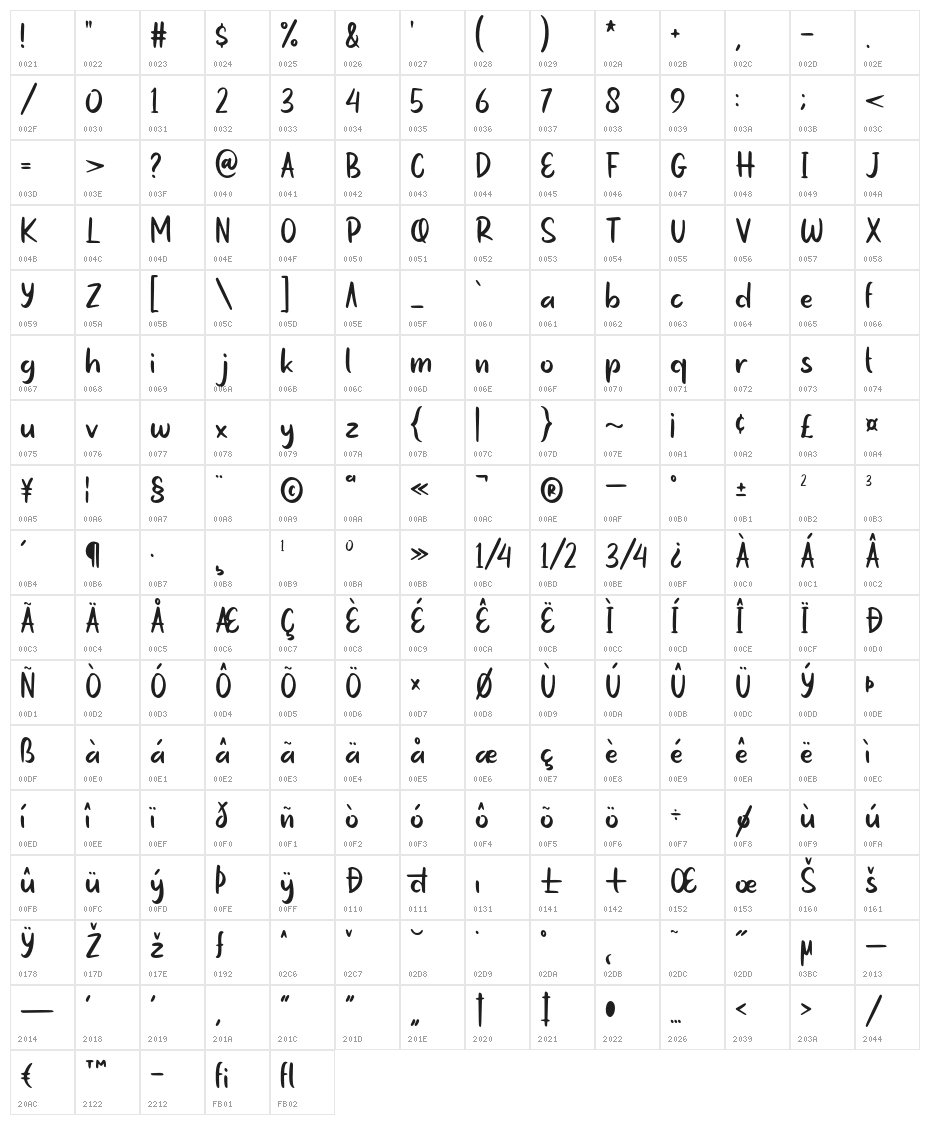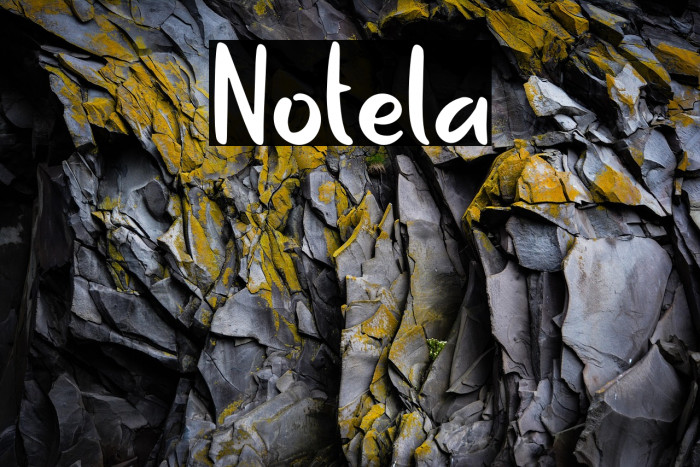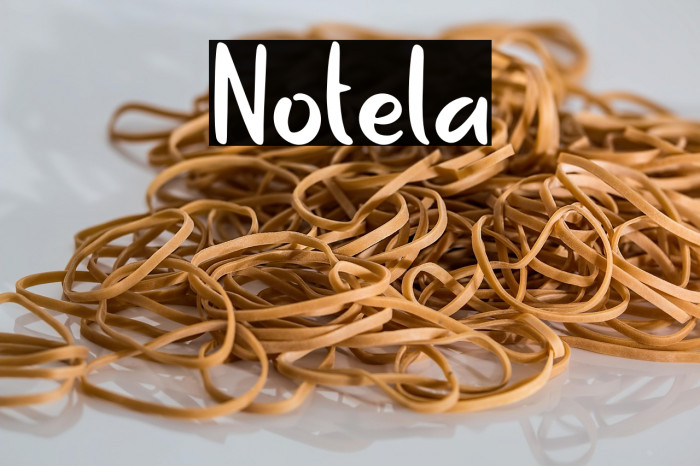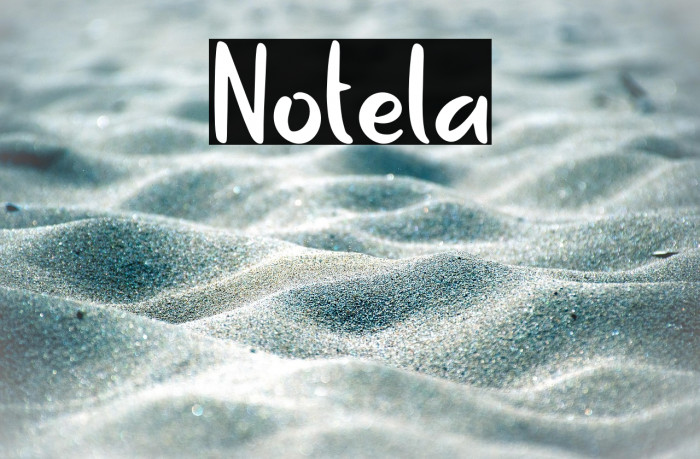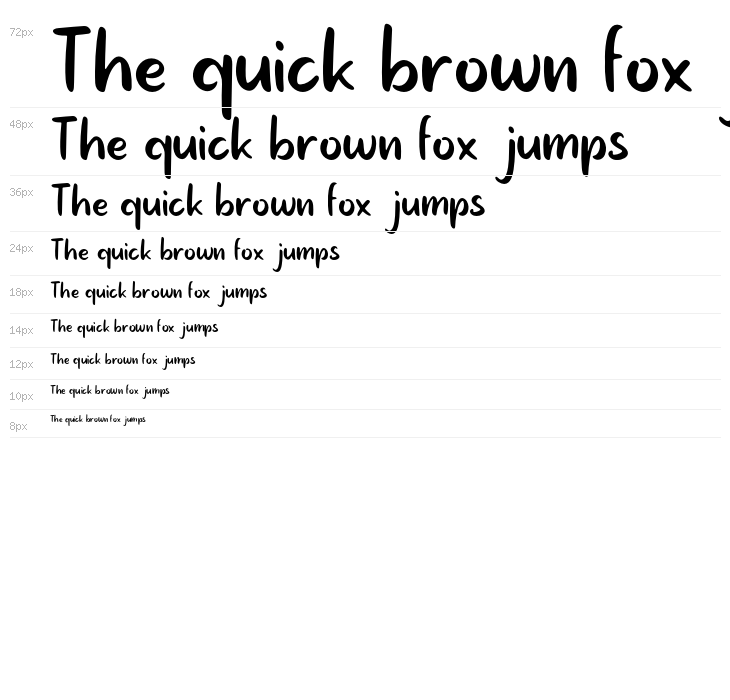
Notela Font
Notela Description
This font features a playful and casual handwritten style, characterized by its smooth, rounded edges and slightly irregular letterforms. The uppercase letters are bold and prominent, while the lowercase letters maintain a consistent flow, adding to the font's approachable and friendly appearance. The numerals are clear and easy to read, complementing the overall style. Special characters are well-integrated, maintaining the font's cohesive look. This font exudes a sense of warmth and informality, making it suitable for a variety of creative applications.
| Overall Style | Casual |
| Use Case | Logos, Headlines, Informal Text |
| Proposed Projects | Ideal for greeting cards, children's books, casual branding, and social media graphics. |